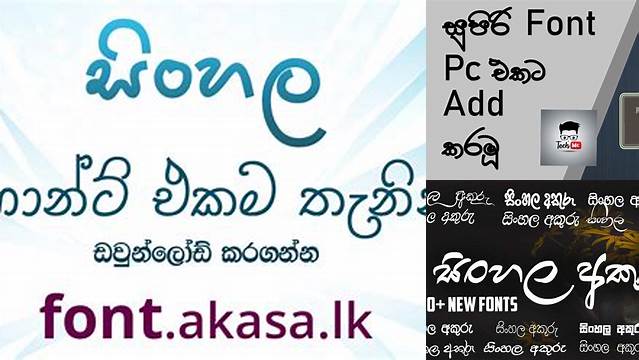
Why Use Sinhala Fonts?
Using Sinhala fonts is essential for anyone working with Sinhala language content on their computer. Whether you're creating documents, designing websites, or just want to read Sinhala text properly, having the right fonts is crucial. A good Sinhala font not only ensures readability but also adds a touch of authenticity and professionalism to your work. Plus, it lets you express yourself in Sinhala with style and clarity.
Sinhala Unicode Fonts
Understanding Unicode
Unicode is a universal character encoding standard that assigns a unique code to each character, regardless of the language or platform. Using Sinhala Unicode fonts ensures that your text is displayed correctly on any device and can be easily shared and edited without compatibility issues. It’s the best way to ensure your Sinhala content is accessible to everyone.
Benefits of Using Unicode Fonts
Unicode fonts offer several advantages. They ensure consistent rendering of Sinhala text across different operating systems and applications. They also support a wide range of characters, including special symbols and diacritics. Plus, Unicode fonts make it easier to search, sort, and index Sinhala text, which is crucial for digital content management.
Popular Sinhala Fonts
FM Abhaya
FM Abhaya is one of the most popular Sinhala fonts, known for its clear and elegant design. It’s widely used in print media and digital publications. Its readability and aesthetic appeal make it a favorite among designers and readers alike. FM Abhaya is a great choice for body text, headings, and titles.
Iskoola Pota
Iskoola Pota is another excellent Sinhala font, designed with a focus on legibility. It's particularly well-suited for educational materials and children's books. Its simple and clean design makes it easy to read, even for young learners. Iskoola Pota is a reliable option for any project that requires clear and accessible Sinhala text.
Finding the Best Sinhala Font for Your Needs
Choosing the right Sinhala font depends on your specific needs and preferences. Consider the purpose of your project, the target audience, and the overall aesthetic you want to achieve. Experiment with different fonts to see which ones work best for you. Don't be afraid to try something new and find a font that truly reflects your style.
Ensuring Font Compatibility
Checking Font Compatibility with Windows 10 (64-bit)
Before downloading a Sinhala font, make sure it's compatible with Windows 10 (64-bit). Most modern fonts are designed to work seamlessly with Windows, but it's always a good idea to double-check. Look for fonts that are specifically labeled as compatible with Windows 10 or that have positive reviews from Windows users.
Avoiding Font Conflicts
Installing too many fonts can sometimes lead to conflicts and performance issues. To avoid this, only install the fonts you actually need. If you have a large collection of fonts, consider using a font management tool to organize and activate them as needed. This will help keep your system running smoothly.
Optimizing Sinhala Text Display
Adjusting Font Settings in Windows